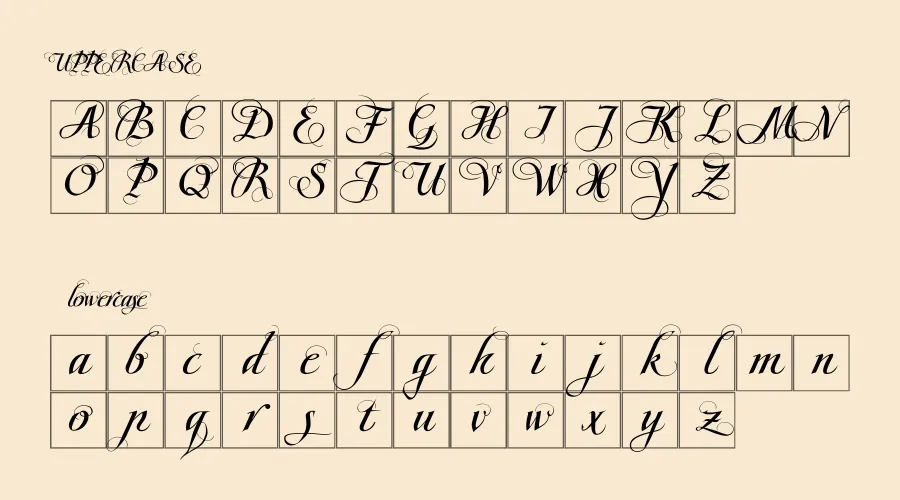
Scriptissimo Forte Swirls Start Font
About Scriptissimo Forte Swirls Start Font
Gert Wiescher designed Scriptissimo Forte Swirls Start Font it is a script text style. This gives it a simple, clean look. This typeface has intriguing characters that give it a modern, clean appearance.
This typeface features a lovely texture style. Fashion magazines, art books, and web designing all use this typeface. The typeface is imaginative and distinctive and will be ideal for adding a bit of personality to any design process.